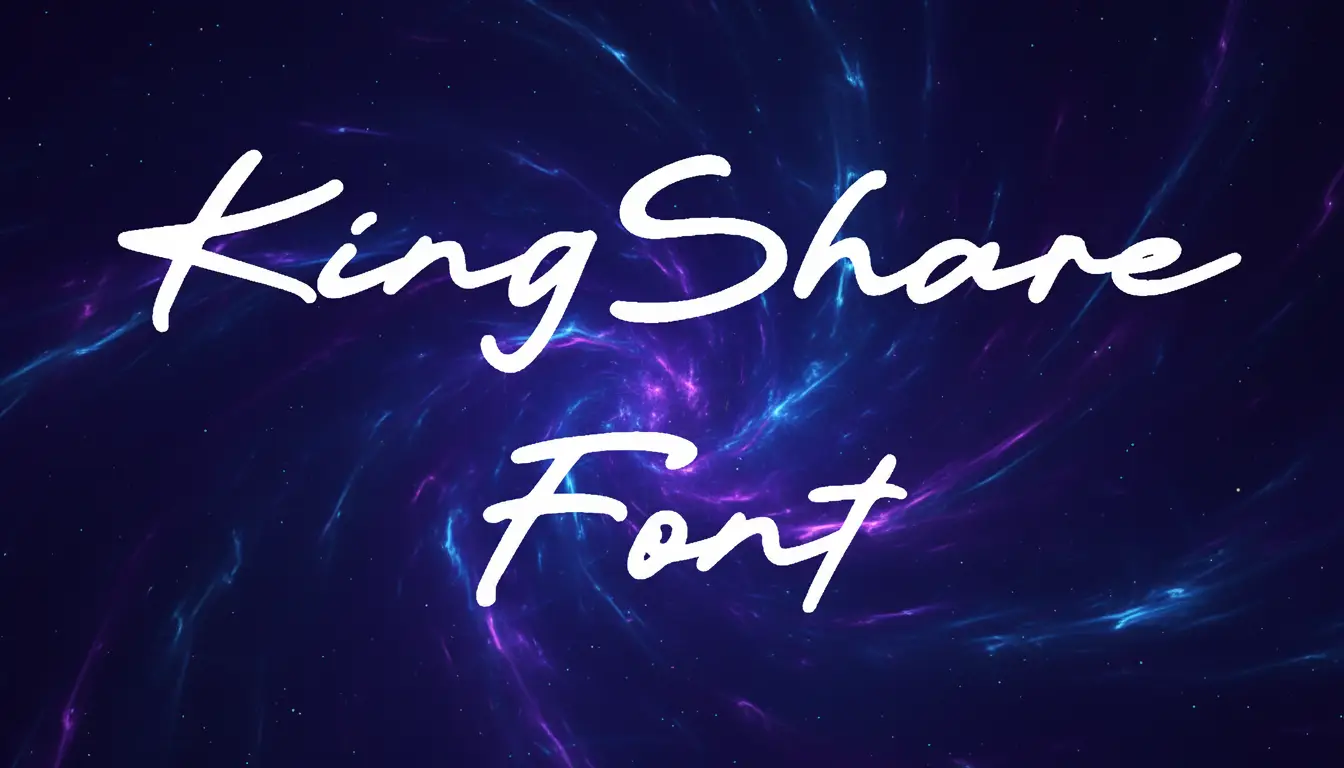
KingShare Font
KingShare is a script font designed by Khurasan. It has that hand-lettered, flowing feel people look for when regular type seems too stiff. It's a free download, and you can try it with your own text in the preview above first.
KingShare covers the full alphabet in upper and lowercase, plus all ten numbers, so you can set names, dates and prices without switching fonts. Everyday marks like &, !, ? and @ are there too. There are no accented letters like é or ñ, so it's best kept to English text.
KingShare is a natural fit for wedding invitations, logos and signature-style headings. Script fonts read best in short bursts, so keep it to names, titles and one-line quotes. Skip all caps: script capitals are drawn to start a word, not to fill one.
No. KingShare has no accented letters such as é, ñ or ü, so it's best for English text.